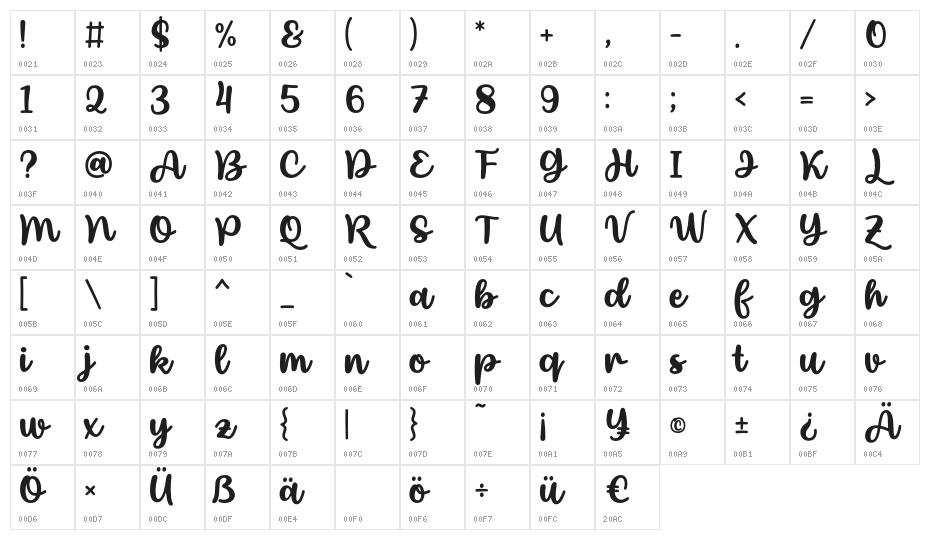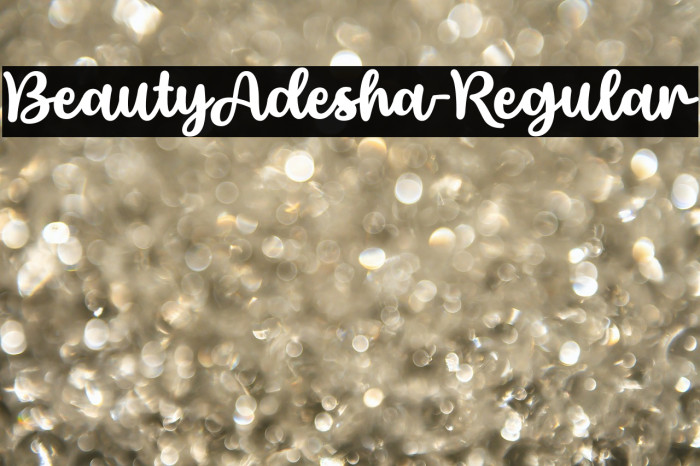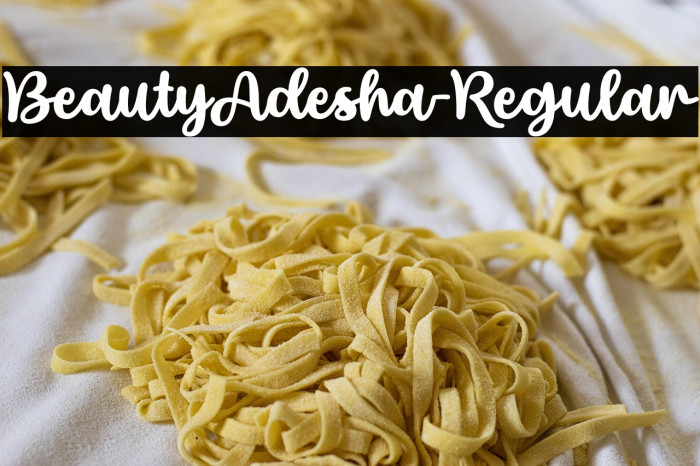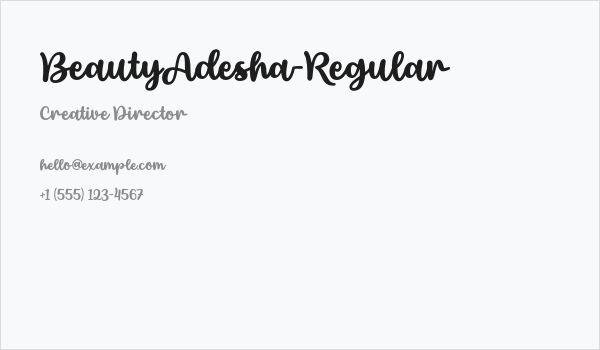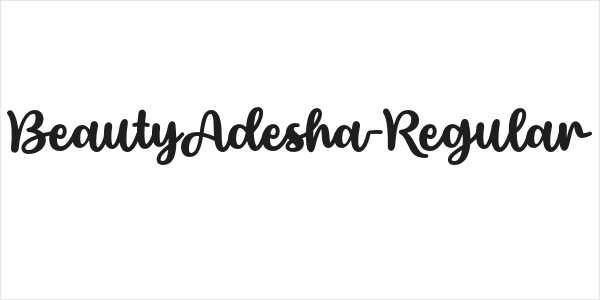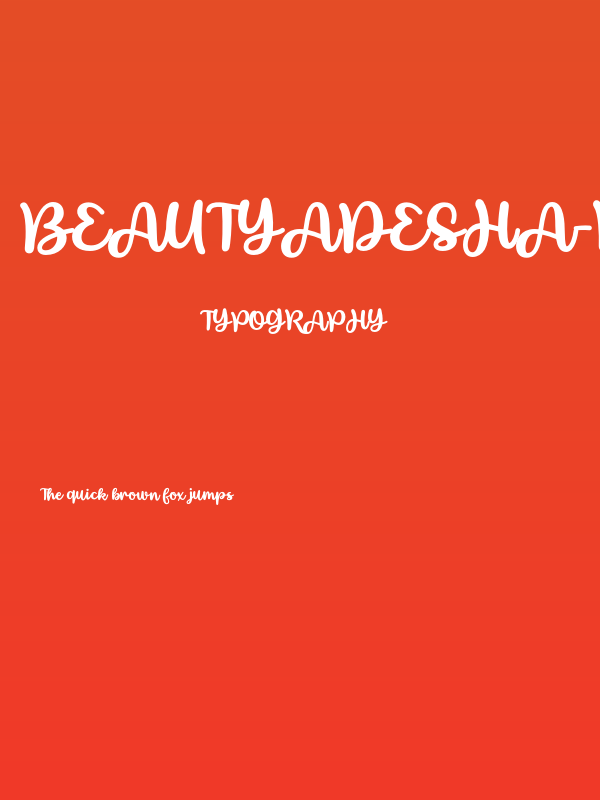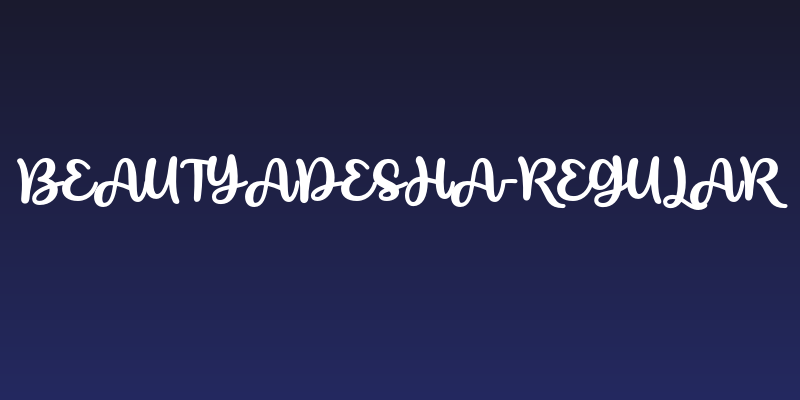
BeautyAdesha-Regular Font
BeautyAdesha-Regular Description
This font features a playful and bold script style, characterized by its flowing, connected letters that give it a handwritten appearance. The uppercase letters are slightly larger and more pronounced, while the lowercase letters maintain a consistent, rounded form. The numbers and special characters are equally bold and maintain the same playful aesthetic. The overall design is smooth and cohesive, making it ideal for projects that require a friendly and approachable look.
Overall StylePlayful
Use CaseLogos, Headlines, Invitations
Proposed ProjectsIdeal for greeting cards, invitations, branding, and social media graphics.